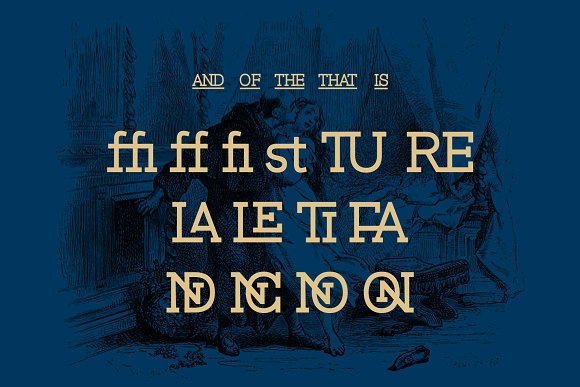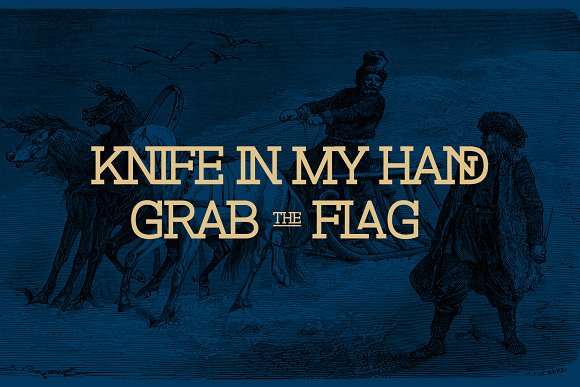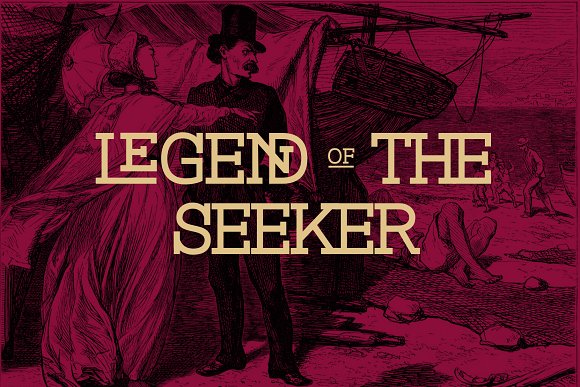
Magz Slab Font
Introducing Magz Typeface. It is designed by Tapiwanashe Garikayi, this is a premium font, are sold on creativemarket, but it was great, it is free today for download. Magz Slab is a modern geometrically constructed slab serif font with subtle contrast between the horizontal and vertical weights. It is great for display purposes having a variety of Ligatures that will add a unique feel to your designs.